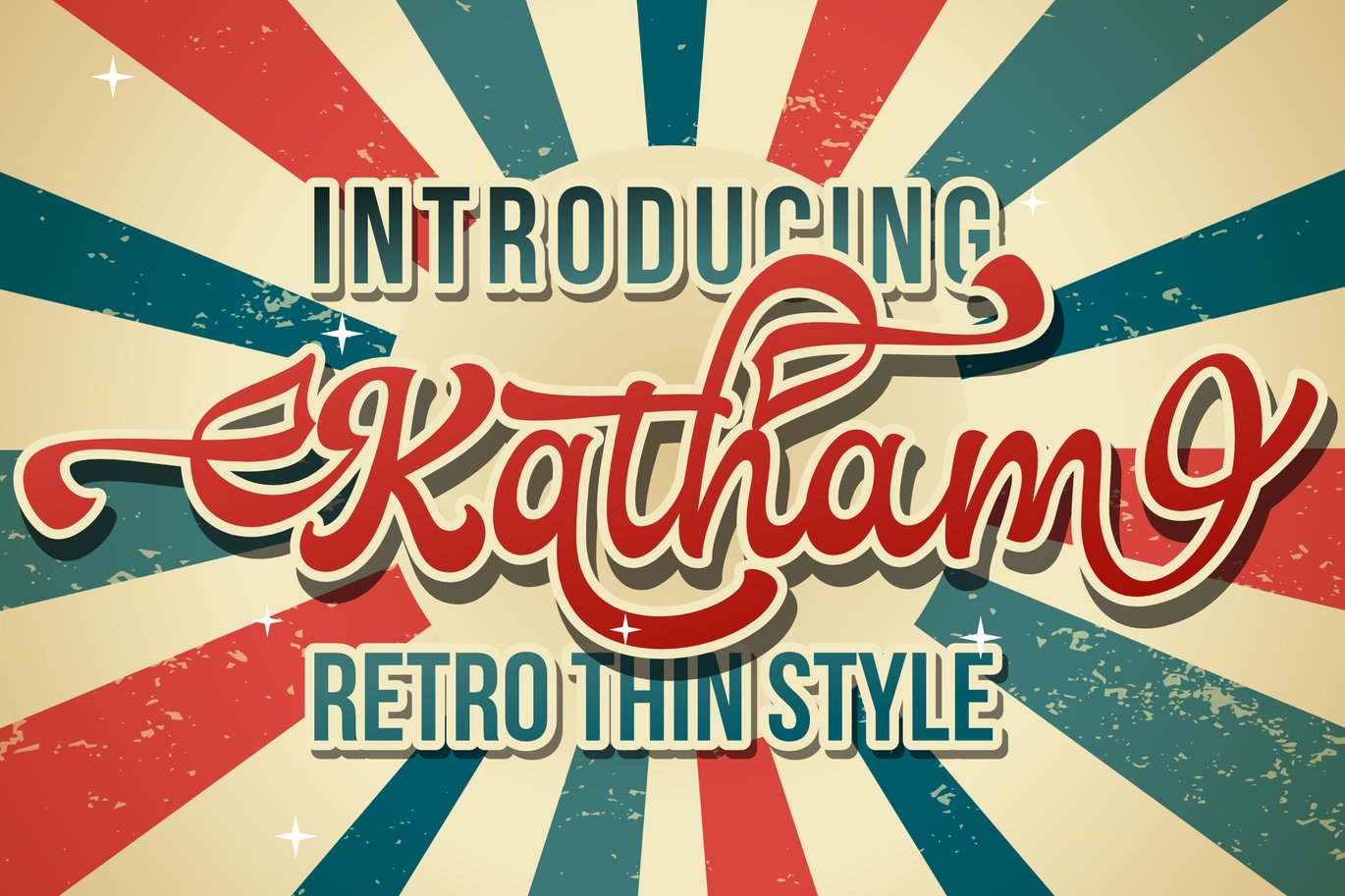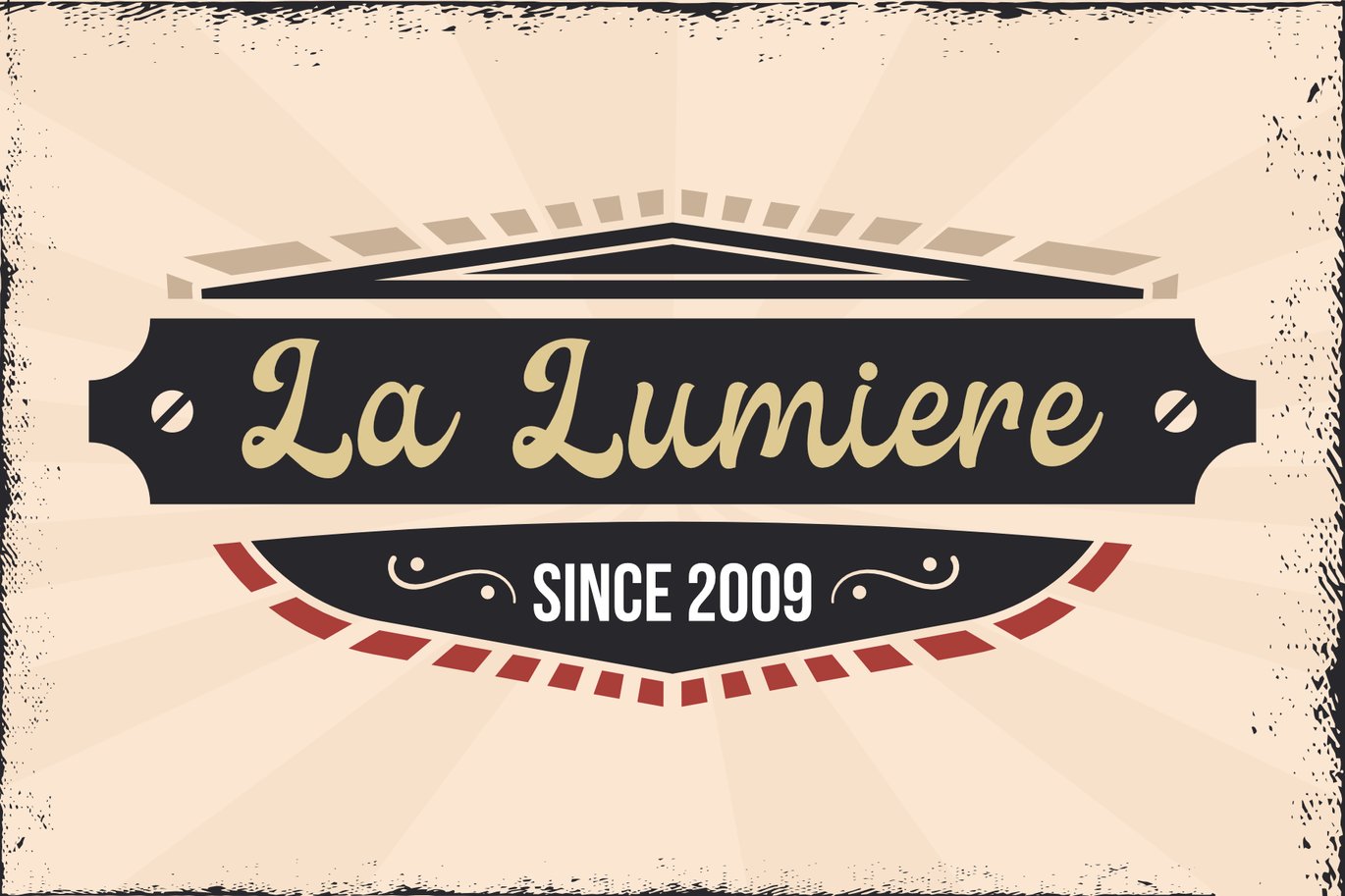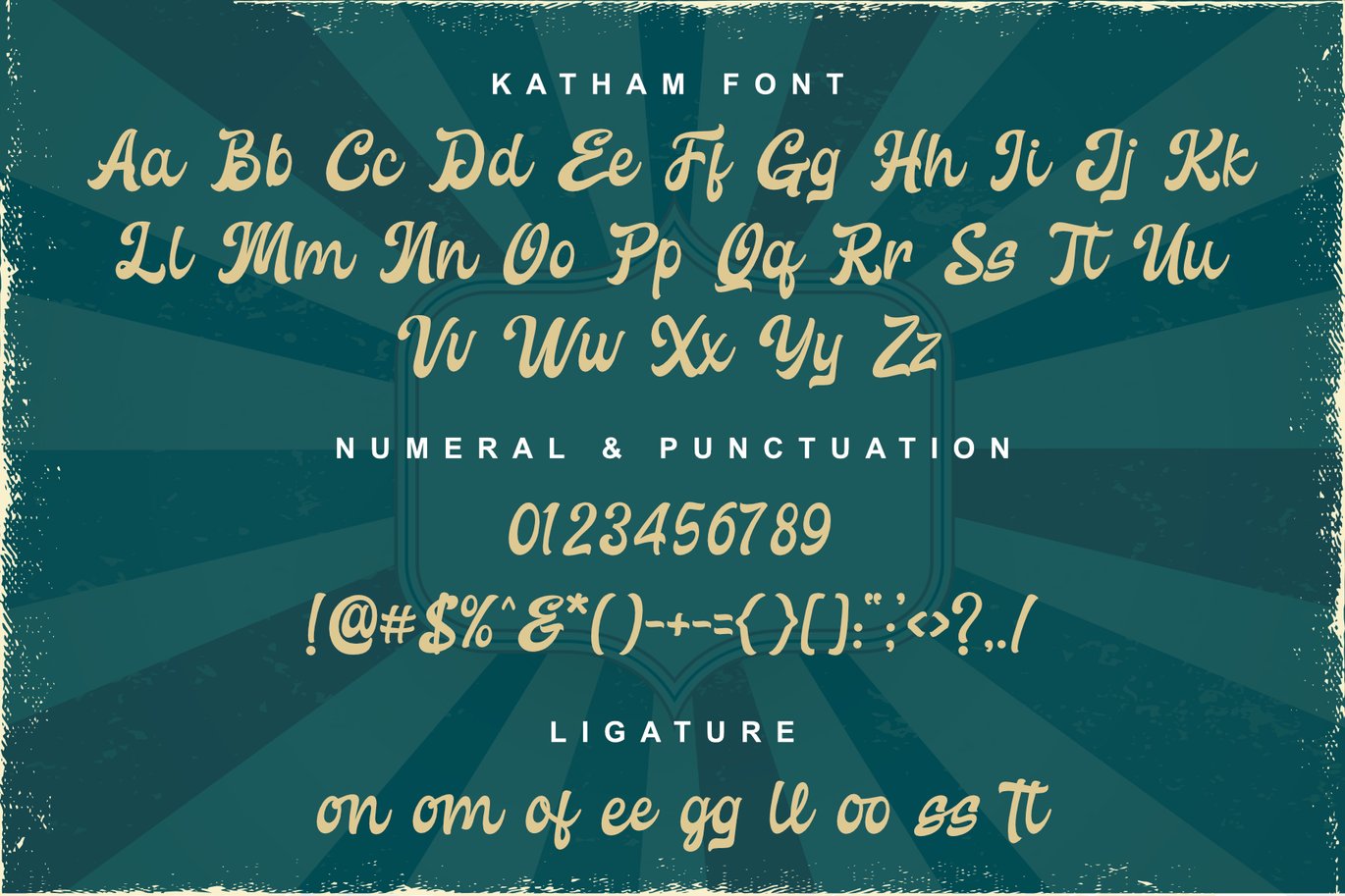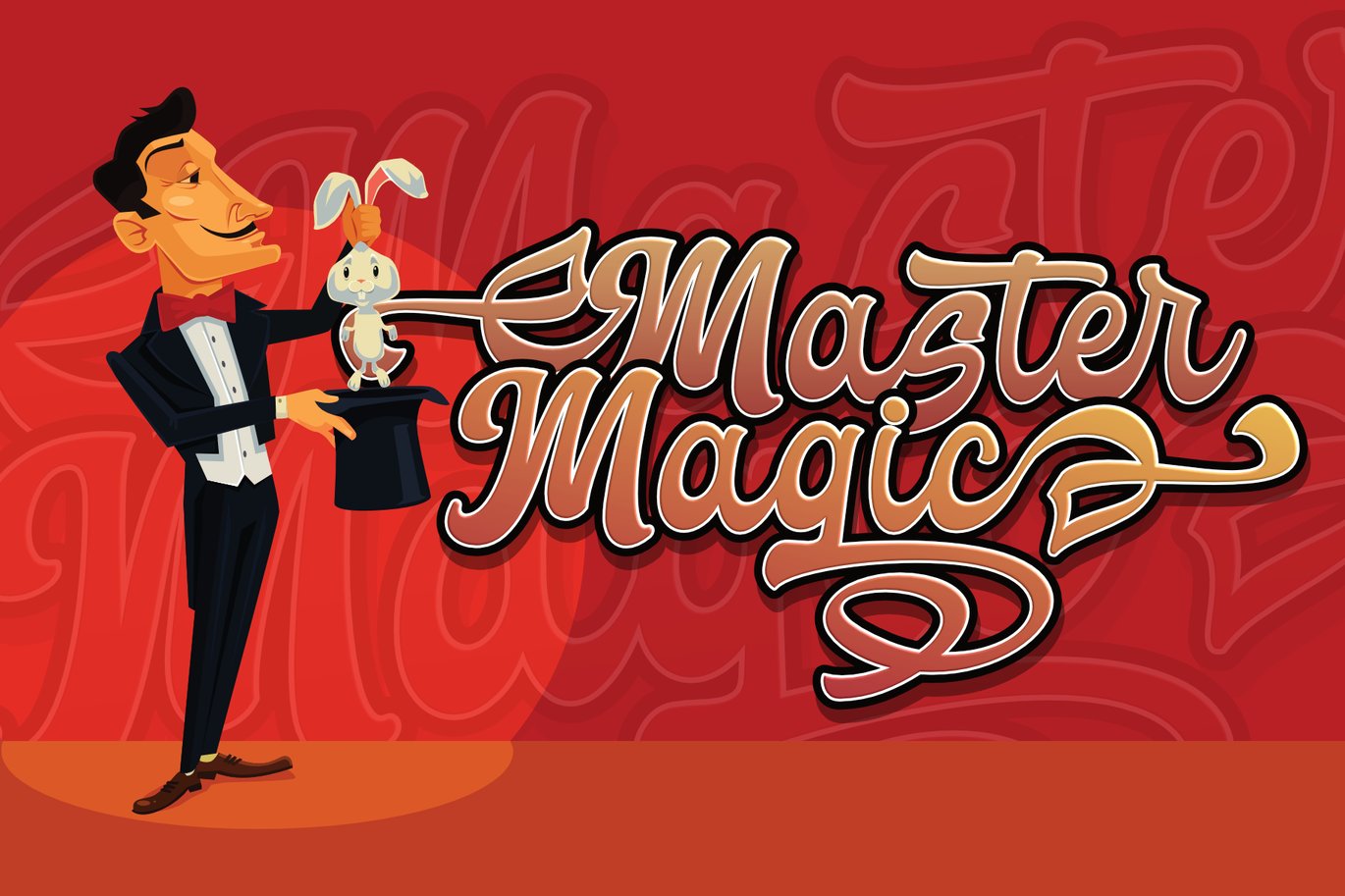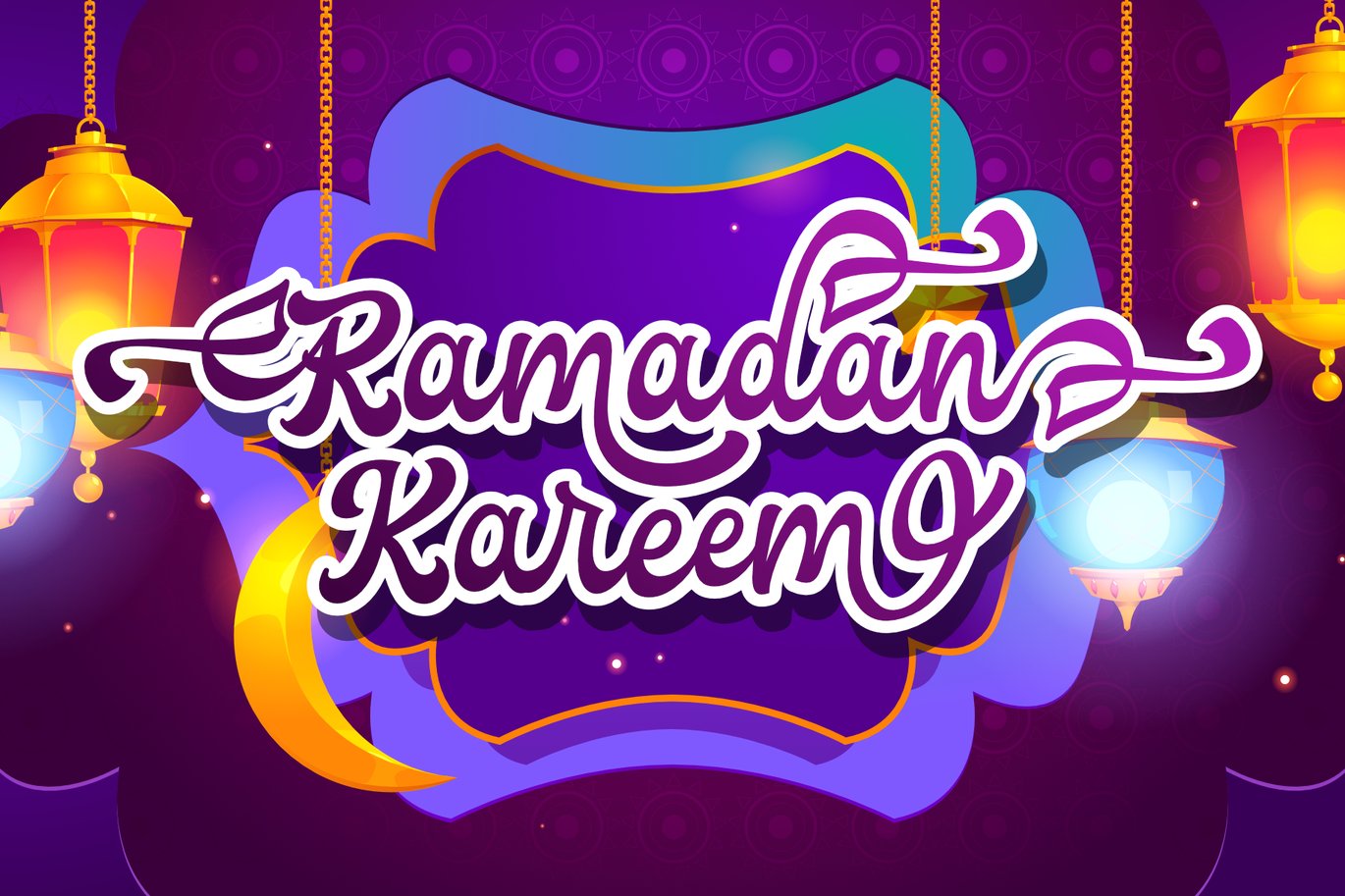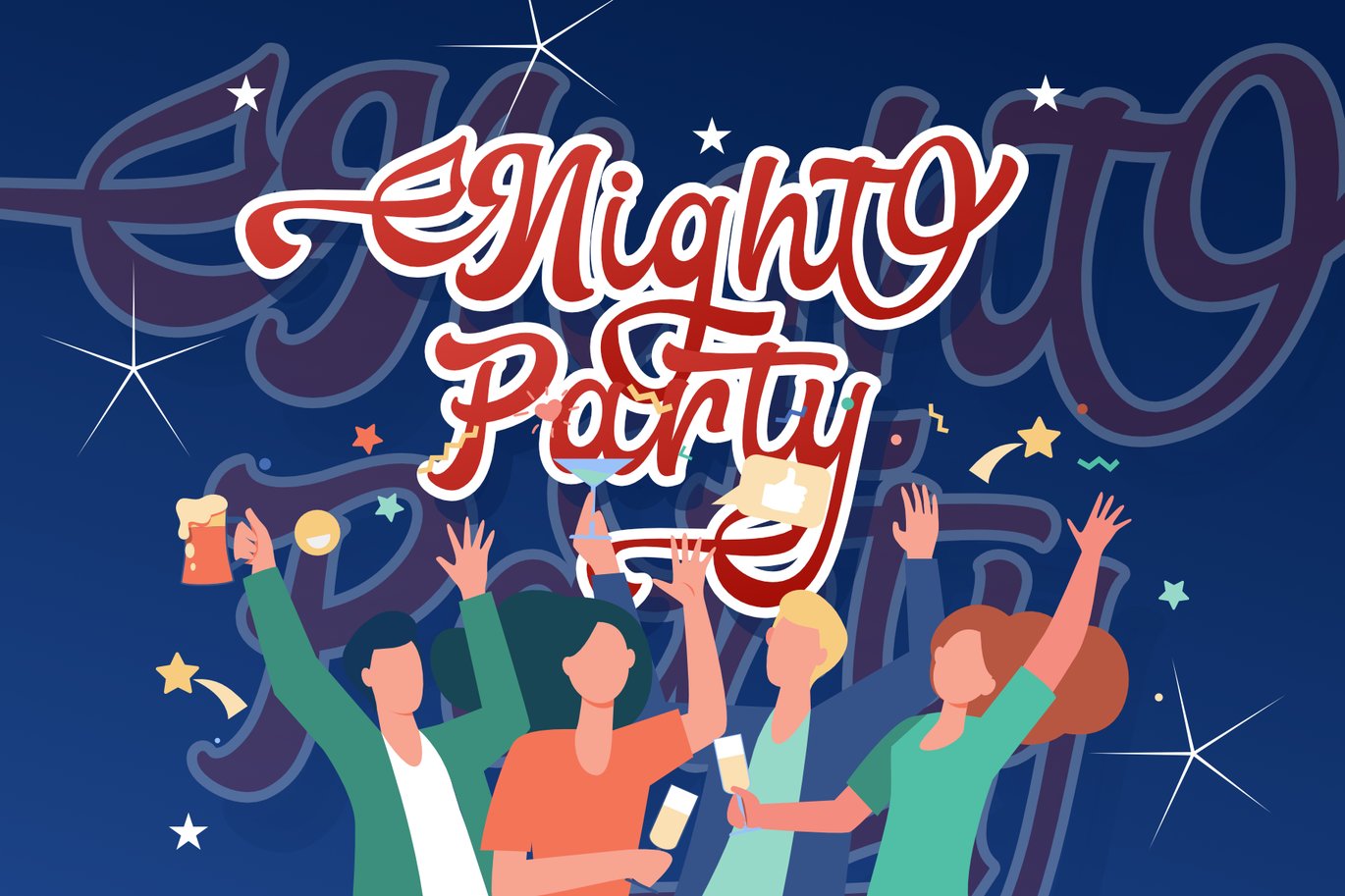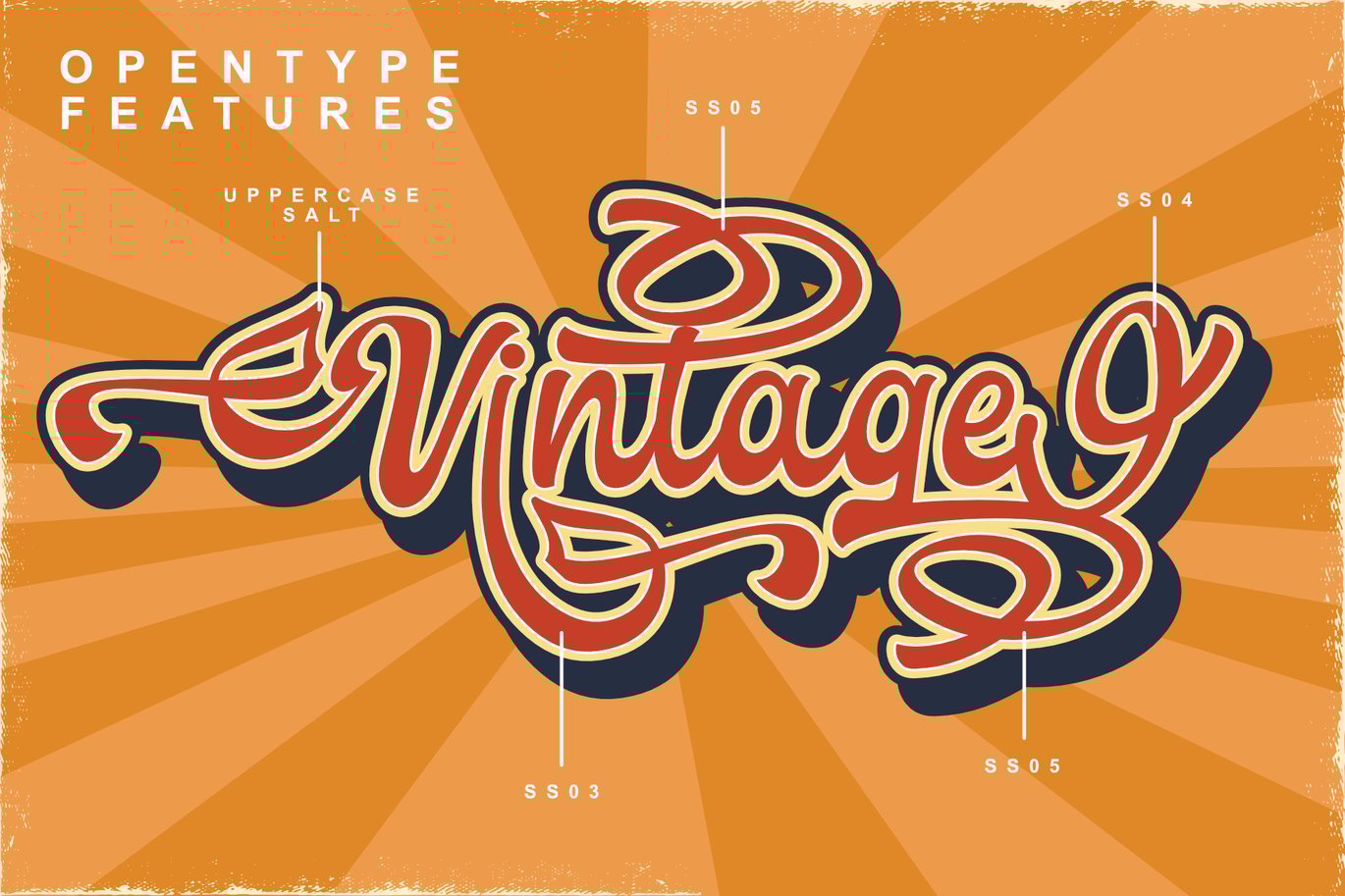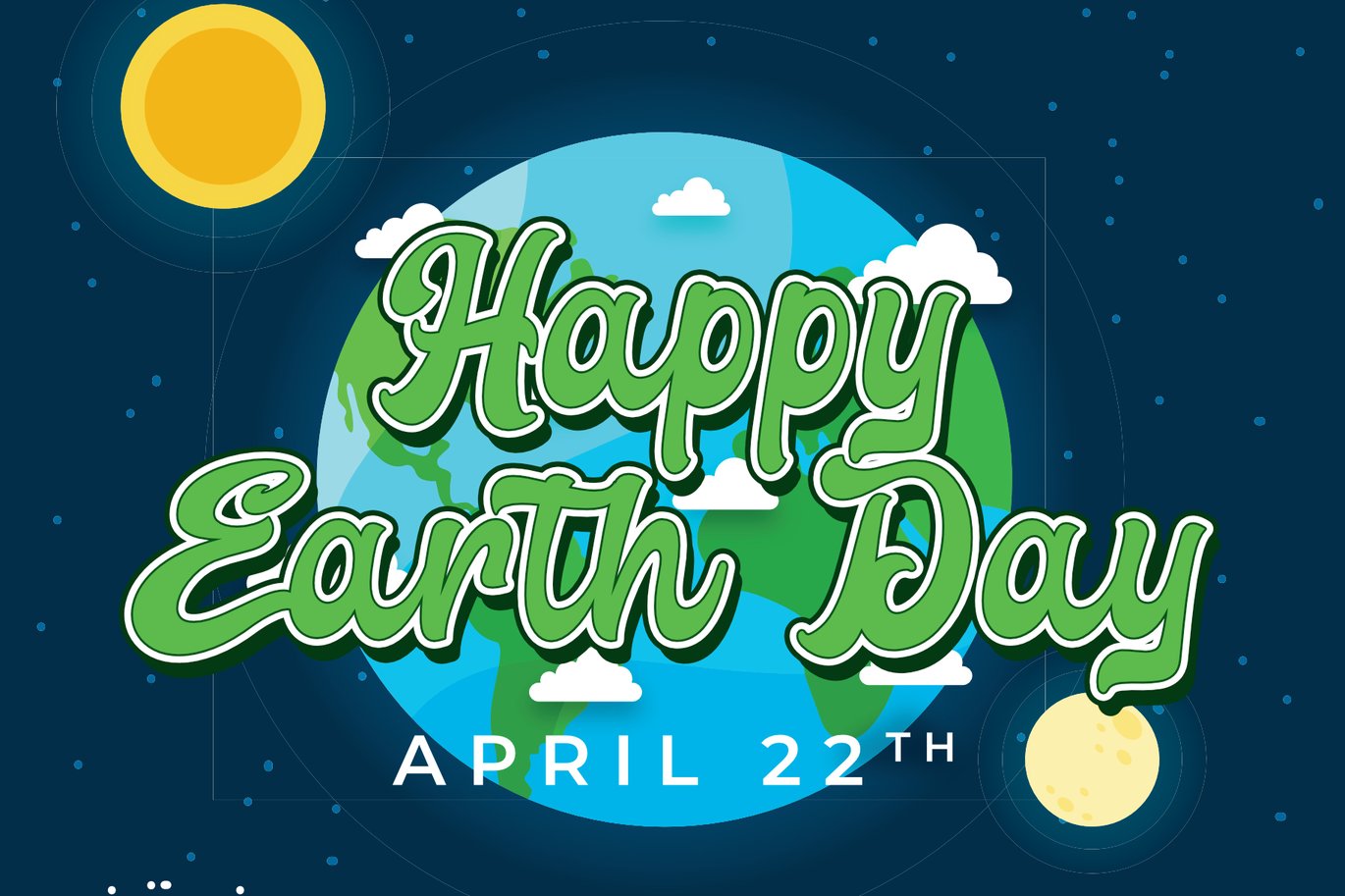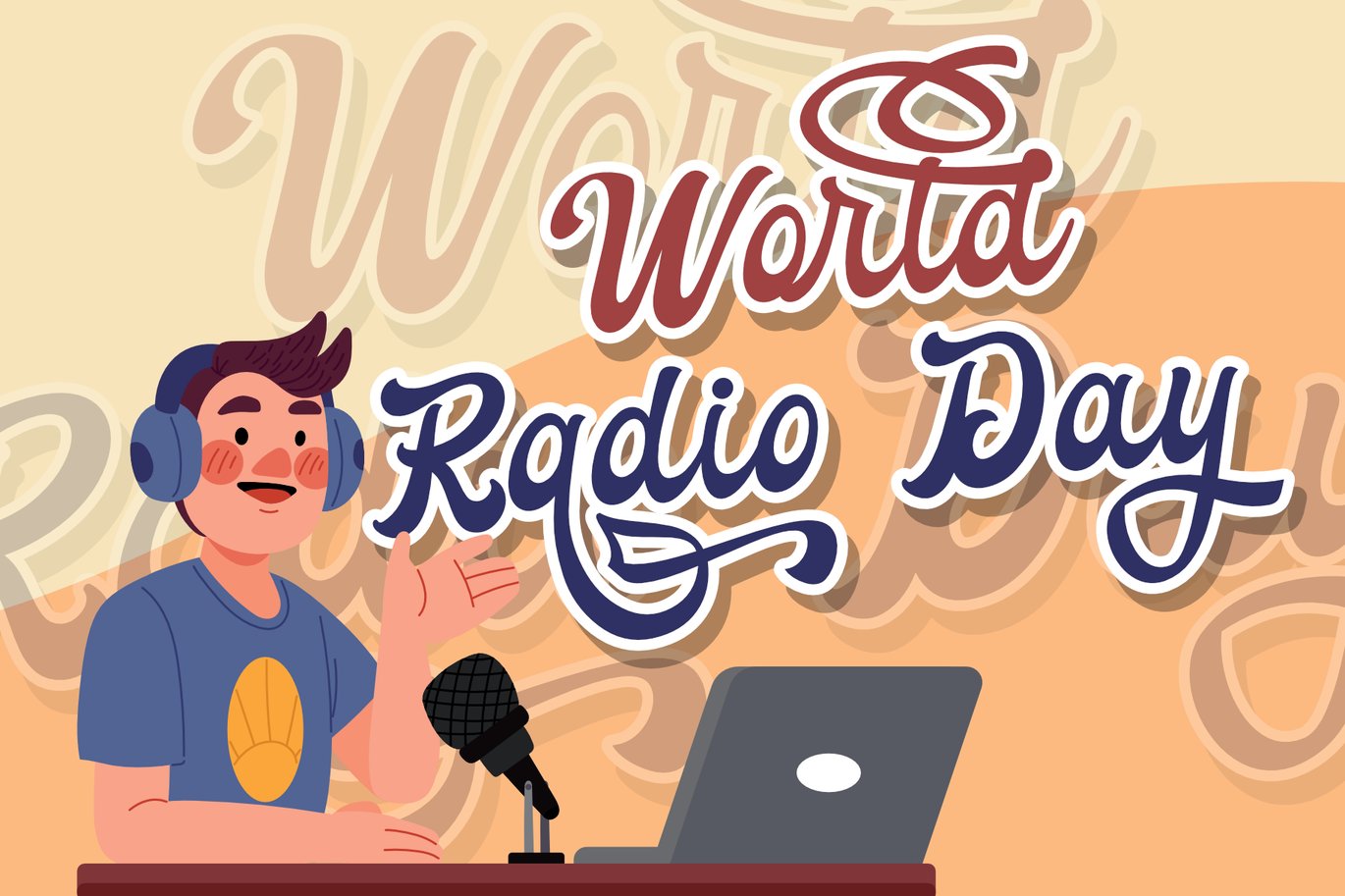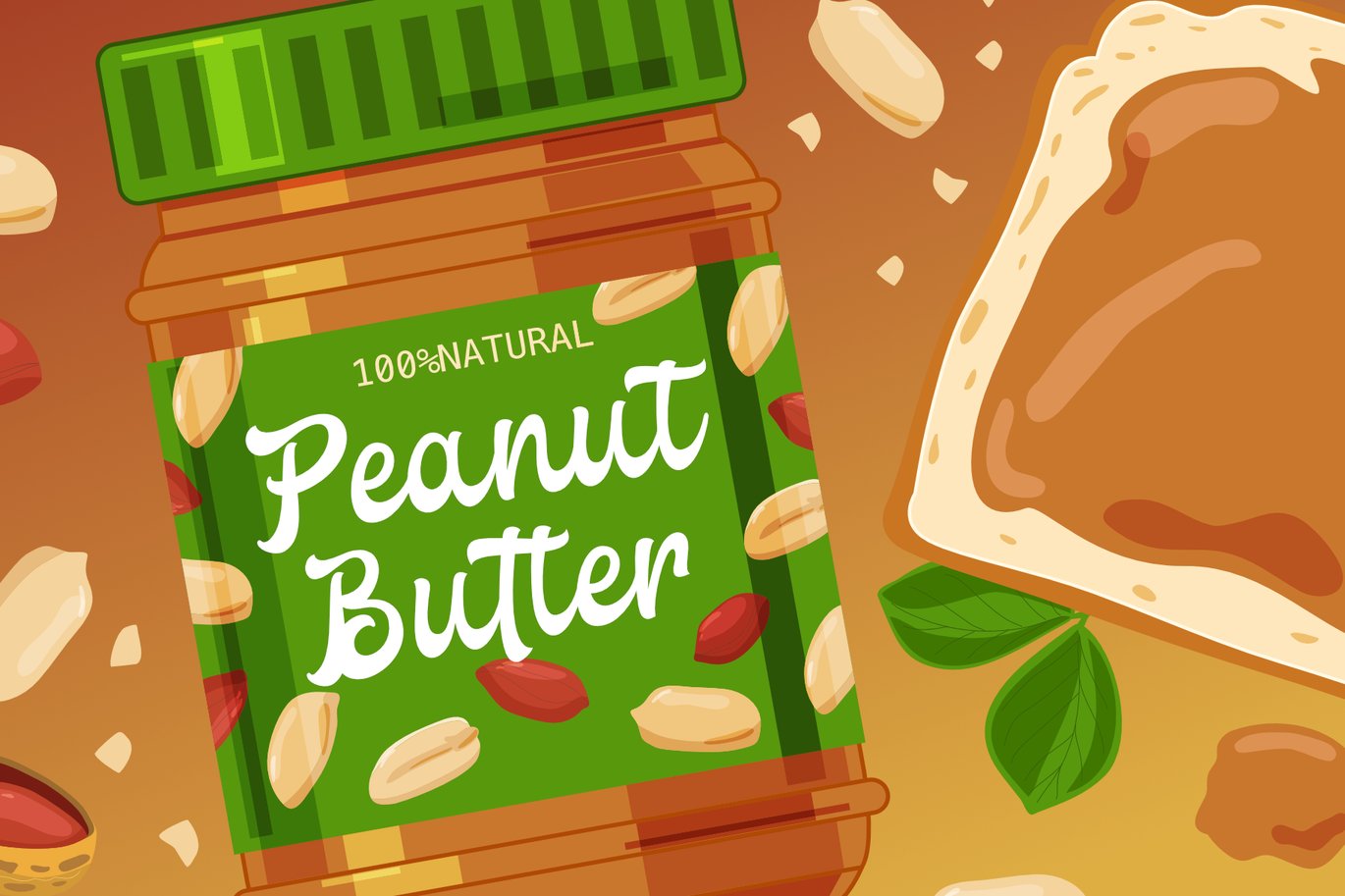
Retro Vintage Script Font
** Katham Retro Vintage Script Font**
Katham is a retro style font with a stunning style that can make the most of your design projects. This font gives a touch of the retro style that the 60-70s were famous for. Retro Vintage Script Font
This font has alternative styles for Upper and Lowercase, Ligature, ss01 – ss05 which can be adapted to your design needs so you don’t waste time creating extrusion effects. Retro Vintage Script Font